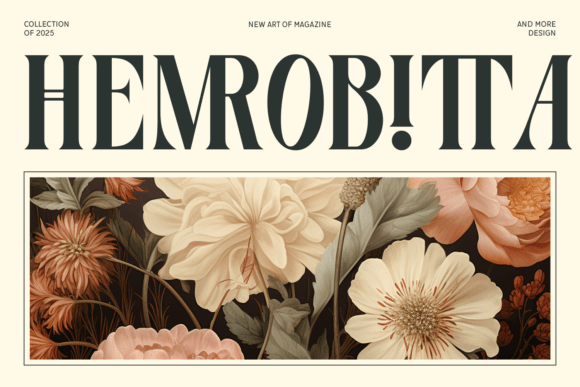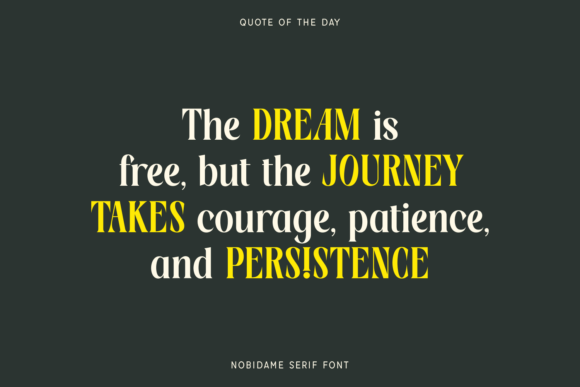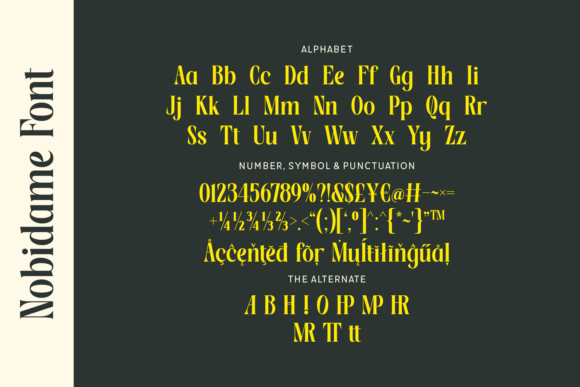
Introduction to Nobidame Font
Do you remember that moment when you finally find the perfect design element to elevate your creative project? For many designers, it’s a moment of pure joy and satisfaction. And for those who’ve worked with the right tools, they know that a high-quality font can make all the difference. One such font that has captured the hearts of designers is the Nobidame Font.
This stylish serif font boasts high contrast and a dramatic editorial flair, making it ideal for branding, magazines, luxury packaging, and high-end visuals. With its fashionable strokes and modern proportions, Nobidame Font is a valuable design resource that can add a touch of sophistication to any project.
Whether you’re working on a creative project that requires a bold statement or a subtle touch, Nobidame Font is an excellent choice. Plus, with its free download option, designers can access this high-quality font without any hassle, allowing them to focus on what matters most – bringing their vision to life.
Key Features of Nobidame Font
- Unique, high-quality design ideal for creative projects and artistic expressions.
- Perfect for use in various creative projects, including digital art, graphic design, and typography experiments.
Honest Review: Nobidame Font
I recently came across the Nobidame Font while working on a creative project and I must say, it caught my attention. The font has a unique, elegant design that adds a touch of sophistication to any layout.
Here are some things that work well for the Nobidame Font:
- ✨ High quality design: The font is well-crafted and has a professional look to it.
- ✨ Transparent background: This feature allows for seamless integration with any design element, making it perfect for backgrounds, headers, or even logos.
- ⚠️ Limited language support: The font only supports a few languages, which may limit its use for international projects.
- ⚠️ Not suitable for small text: Due to its elegant design, the font may not be ideal for small text sizes, as it can become difficult to read.
Overall, I was impressed with the Nobidame Font’s design and versatility. While it may have some limitations, it’s a great resource for any designer working on a creative project that requires a touch of elegance and sophistication.
The Nobidame Font is suitable for various creative projects, including graphic design, digital art, and print design. You can use it for designing logos, business cards, brochures, and other marketing materials. Additionally, the font can be used for creating engaging social media graphics and presentations.